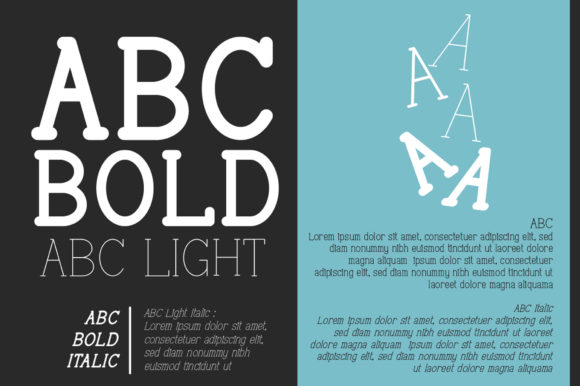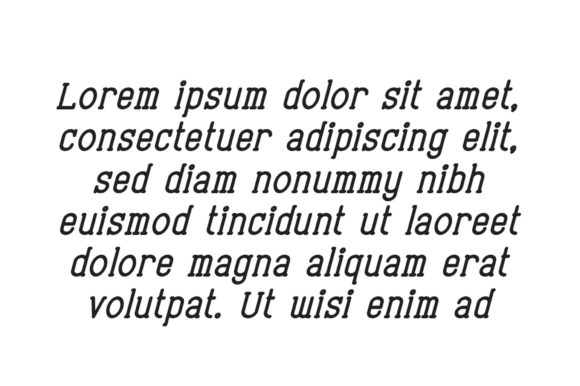
The ABC Bold Italic Font: A Designer’s New Best Friend
I still remember the last time I was working on a project, and I just couldn’t seem to find the right font. My client wanted something clean, simple, and elegant, but also with a bit of a bold touch. I scoured the internet, tried out countless fonts, but nothing seemed to fit the bill. That was until I stumbled upon the ABC Bold Italic font. It was love at first sight! 💕
- ✨ Clean and simple serif design that’s perfect for a wide range of projects
- 🎉 Beautifully balanced bold and italic styles that add a touch of sophistication
- 💻 Works seamlessly across various platforms and devices
While ABC Bold Italic is an amazing font, it’s not without its quirks. For example:
- 🤔 The font doesn’t have a huge range of stylistic alternates, which might limit its use in certain design projects
- ⚠️ Some users might find the font a bit too similar to other serif fonts on the market
One of the best things about ABC Bold Italic is its support for OpenType features and glyphs. Here are a few tips for getting the most out of these features:
- Use the glyphs panel to access alternative characters and ligatures
- Experiment with different stylistic sets to add a unique touch to your design
- Use the OpenType features to create beautiful, professional-looking text
The Backstory Behind ABC Bold Italic
ABC Bold Italic was designed by a team of typographers who wanted to create a font that was both clean and elegant. The font was inspired by classic serif fonts, but with a modern twist. The designers wanted to create a font that was perfect for a wide range of projects, from books and magazines to web designs and business cards.
Q: What is ABC Bold Italic font?
A: ABC Bold Italic is a clean and simple serif font that’s perfect for a wide range of design projects.
Q: Is ABC Bold Italic suitable for body text?
A: Yes, ABC Bold Italic is highly legible and works well for body text, even at smaller font sizes.
Q: Is ABC Bold Italic available in different languages?
A: Yes, ABC Bold Italic supports a wide range of languages, including English, Spanish, French, and many others.